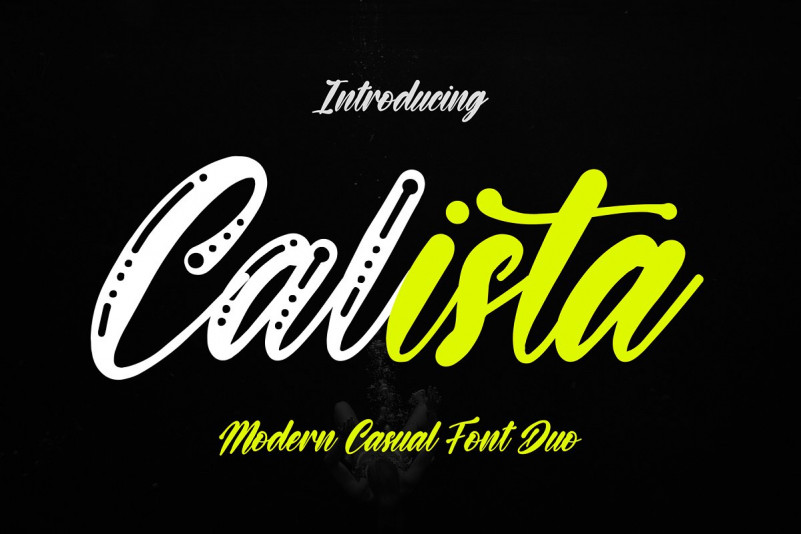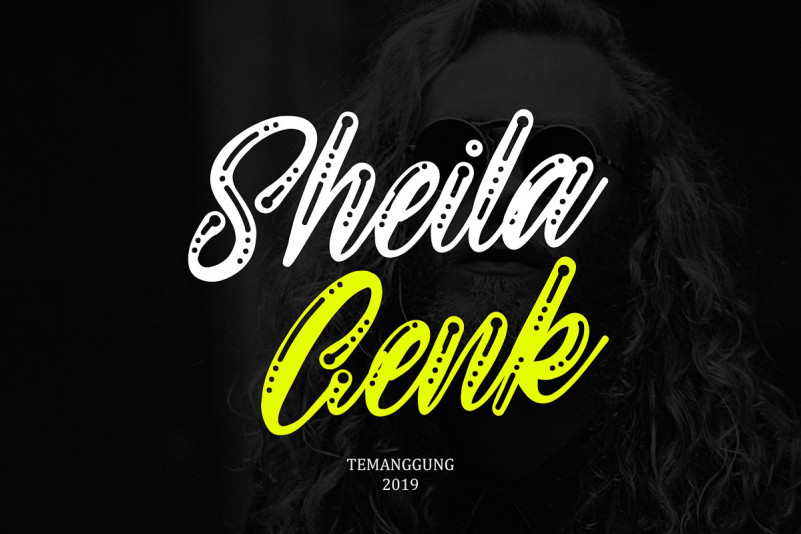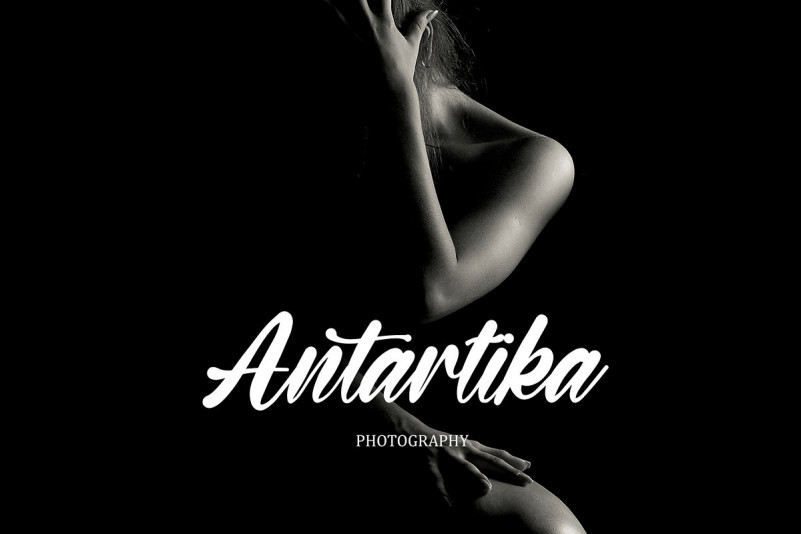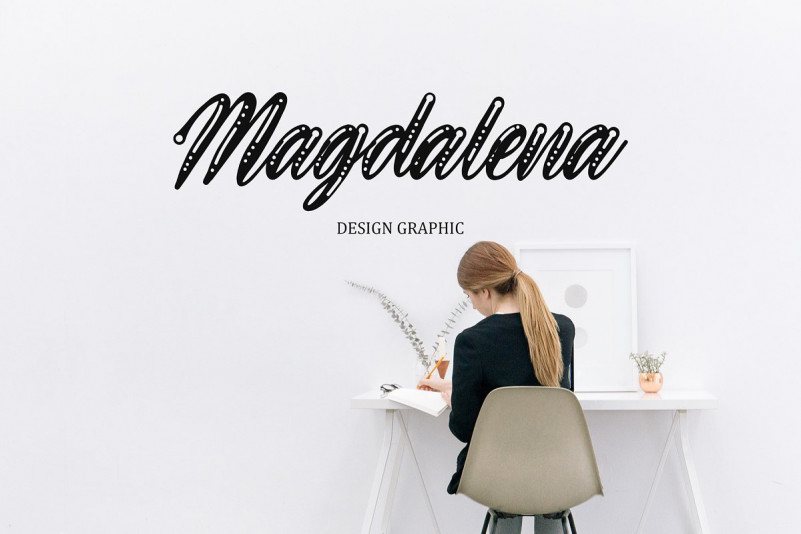
Calista Font
Calista Handwritten casual font style, this font will perfect for many different project ex: quotes, logo, blog header, poster, banding, fashion, apparel, letter, invitation, stationery, etc…